If commitment issues make you run out the door, think twice about what is a good font for a tattoo. Because a tattoo is FOREVER. This means picking the right font is serious business.
You certainly wouldn’t want your tattoo to turn into an ink blob as the years pass by looking sad and incomprehensible. But you don’t have to go through that, we have rounded up great fonts for tattoos that stay fresh for decades! Let’s get right on it before you change your mind about that tattoo!
Why are typography tattoo fonts popular these days?
Many people think of tattoos as a way of self-expression. They show who you are, and if you don’t want to end up being a meme, you need to choose the right font. With a legible font, you can not only represent yourself but also present it in the most beautiful way possible.
That is why you might see more and more people asking, “What are the best fonts for tattoos?” Let’s show you how typography can make or break your tattoo game and what font tattoo ideas you can choose from.
Ever wonder why everyone’s getting these awesome font tattoos lately?
- It’s your signature: With people trying to look like their favorite celebrity, unfollow the herd and use your tattoo to tell your unique story. Think about it, what tells your story best? Maybe a strong, bold font for something more edgy. It’s totally you!
- Instagram made me do it! It’s about time you admit Instagram has influenced you into doing things. And why not? Instagram is a great place to get font tattoo ideas like those amazing script tattoos that are just too hard to resist.
- Looks good, reads good: Do you know what is the best tattoo font? A font that’s readable! Keep it stylish and practical, you do want your tattoo to look great and easy to read, don’t you?
What are the common tattoo fonts used by artists?
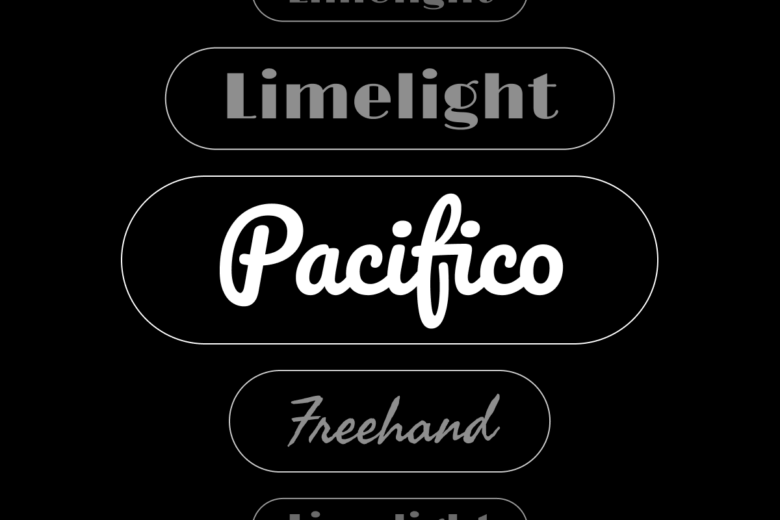
Let’s check out some of the best tattoo fonts that tattoo artists swear by.
Limelight
Do you want your tattoo to be as dark as your soul? Ironically, the Limelight font is perfect for that. The font has sharp edges with bold strokes that kind of give medieval vibes. If you are looking for something bold and out there, Limelight is a great choice.
Best for: names, quotes, and bold statements
Style: gothic blackletter with vintage intensity
Looks great on: chest, arms, or back
Pacifico
Poetic justice is a big trend when it comes to tattoos. The Pacifico font moves like a gentle breeze, and the letters are solid, giving you a poetic but strong vibe. This font reminds of vintage notes that our ancestors would tuck in books with their deepest thoughts.
Best for: quotes, names, and delicate designs
Style: elegant script with handwritten charm
Looks great on: wrist, collarbone, or forearm
Freehand
Best for: retro tattoos with a modern feel
Style: serif font with vintage-meets-contemporary vibes
Looks great on: shoulder, ribs, or upper arm
Miltonian Tattoo
The industry style is what makes this font stand out. It’s raw, it’s edgy, and it gives off an attitude you’d die for. Safe to say it looks like cool graffiti on the walls. Let your body scream rebellion with this cool font!
Best for: bold quotes and strong statements
Style: rugged, industrial-inspired handwriting
Looks great on: ankle, behind the ear, or on the wrist
Pro tip: Keep it small yet striking by playing with its crisp details.
Pathway Gothic One
Cyberpunk is still trending, and if you want to be a cyborg in your next life, use Pathway Gothic One for your tattoos in this one. It will take you to another dimension.
Best for: Sci-fi, cyberpunk, or minimalist tattoos
Style: Clean, techy, and futuristic
Looks great on: Fingers, neck, or ribcage
How to choose the right tattoo font
Match the font to the meaning:
- Elegant scripts (Pacifico) – perfect for love notes and heartfelt messages.
- Bold, statement fonts (Limelight, Miltonian Tattoo) – ideal for empowerment and strong expressions.
- Retro or modern blends (Freehand, Pathway Gothic One) – great for timeless quotes or futuristic vibes.
Consider Placement:
- Simple, clean fonts (Pathway Gothic One) – best for fingers, wrists, or ribs where space is limited.
- Intricate, decorative styles (Limelight, Freehand) – shine on larger areas like backs, thighs, or shoulders.
Conclusion
Every tattoo tells a story, and the font you choose is the voice behind it. Doesn’t matter if you prefer a timeless serif, a flowing script, or a bold, edgy style, the right font makes sure your ink stays legible and stylish, and the tattoo is uniquely yours for years to come.
Your ink is forever—choose a font that tells your story the way you want.